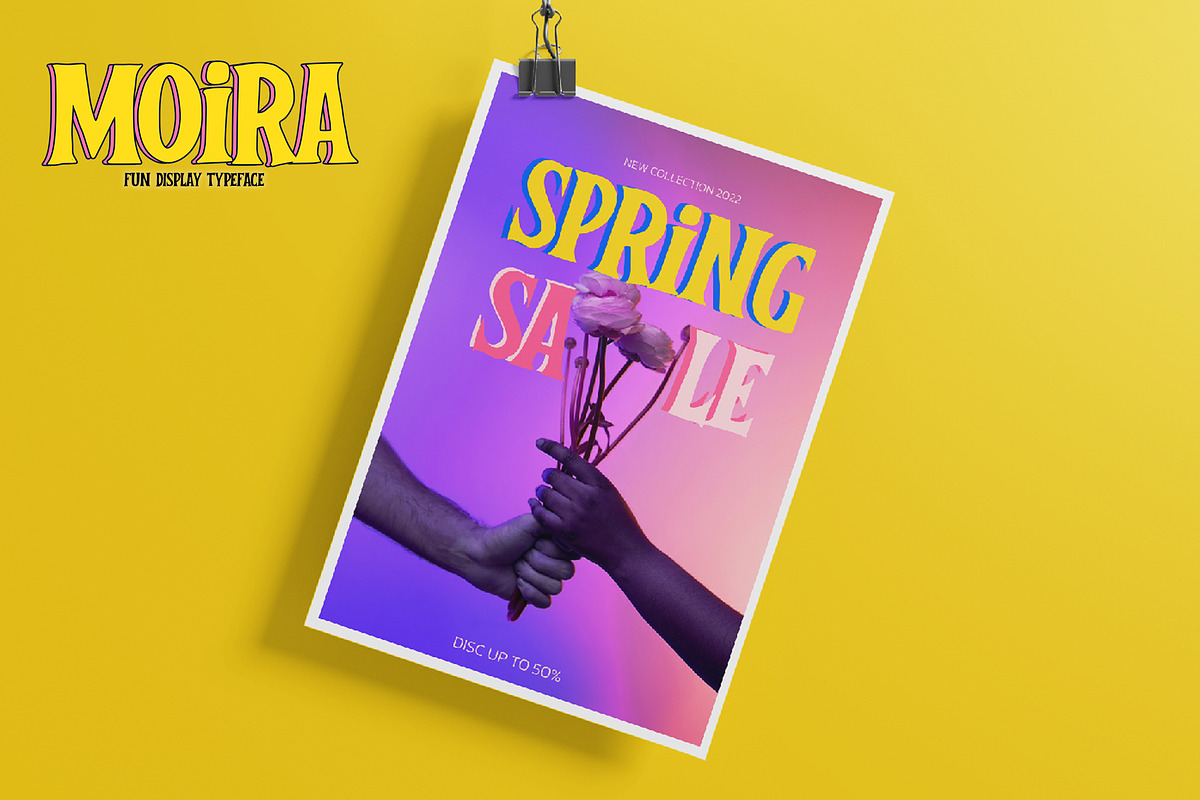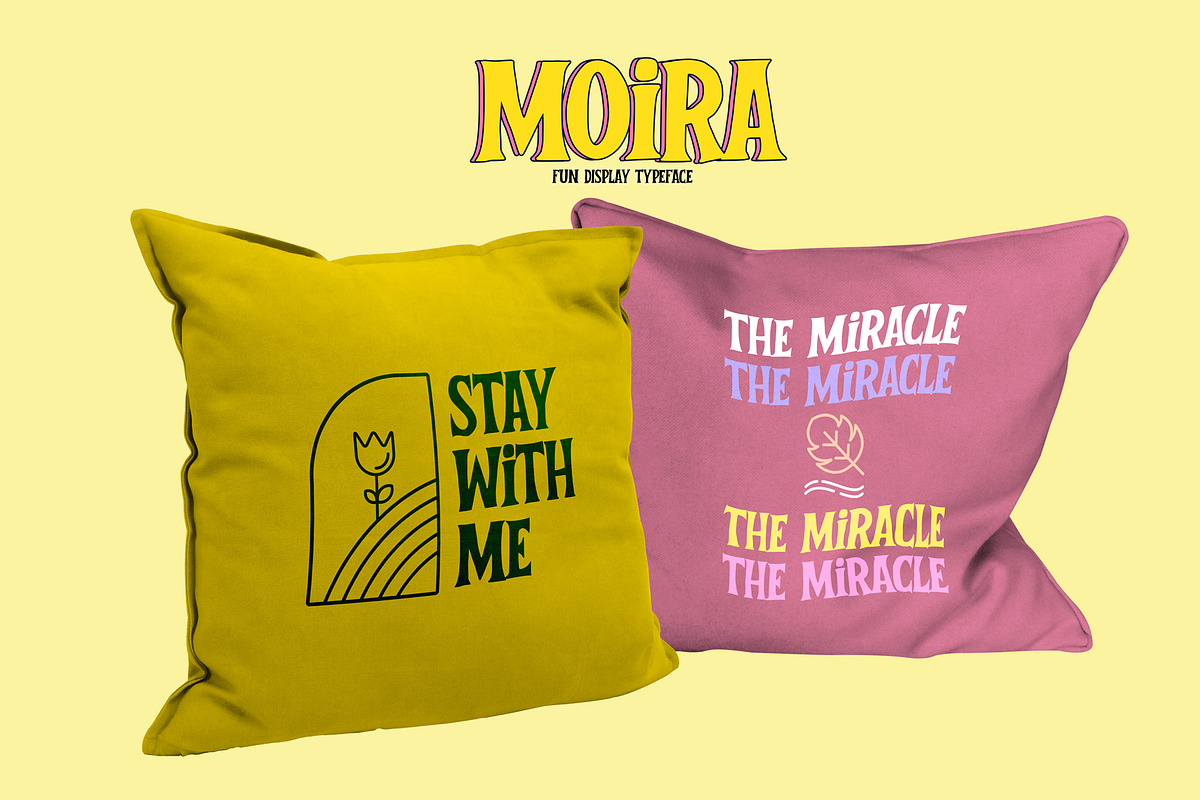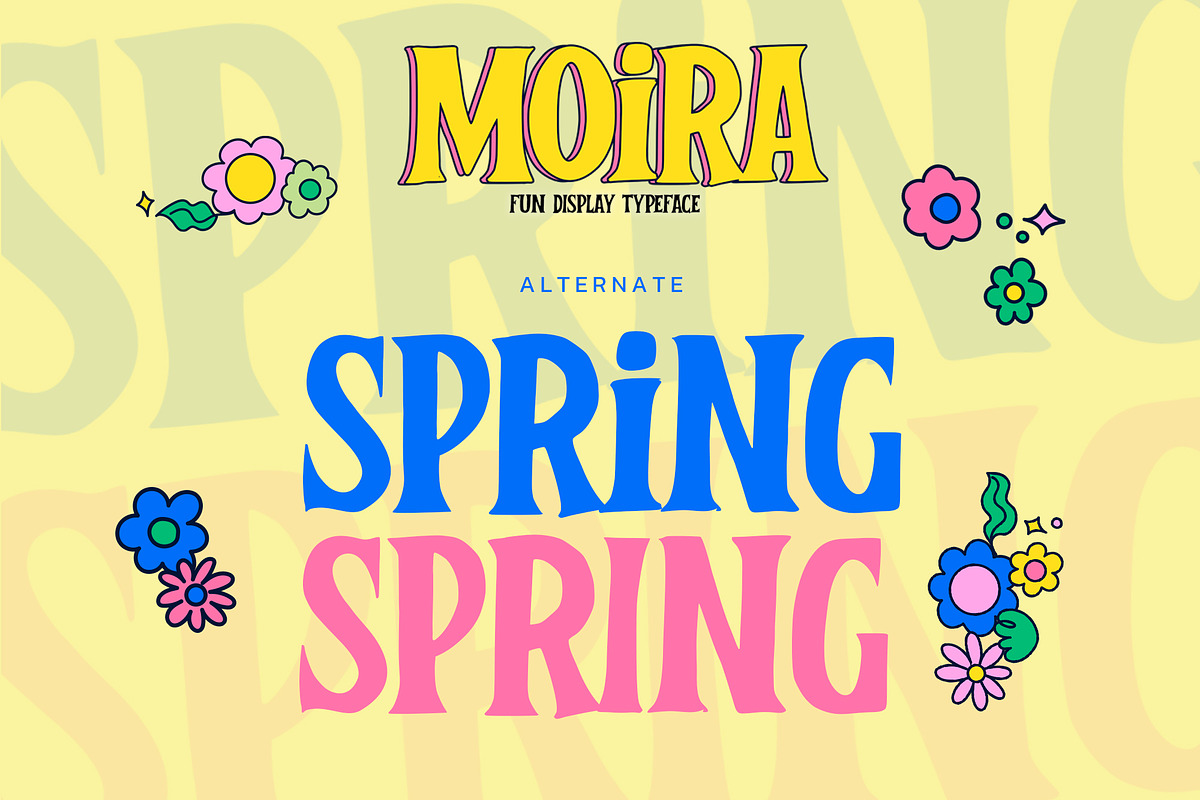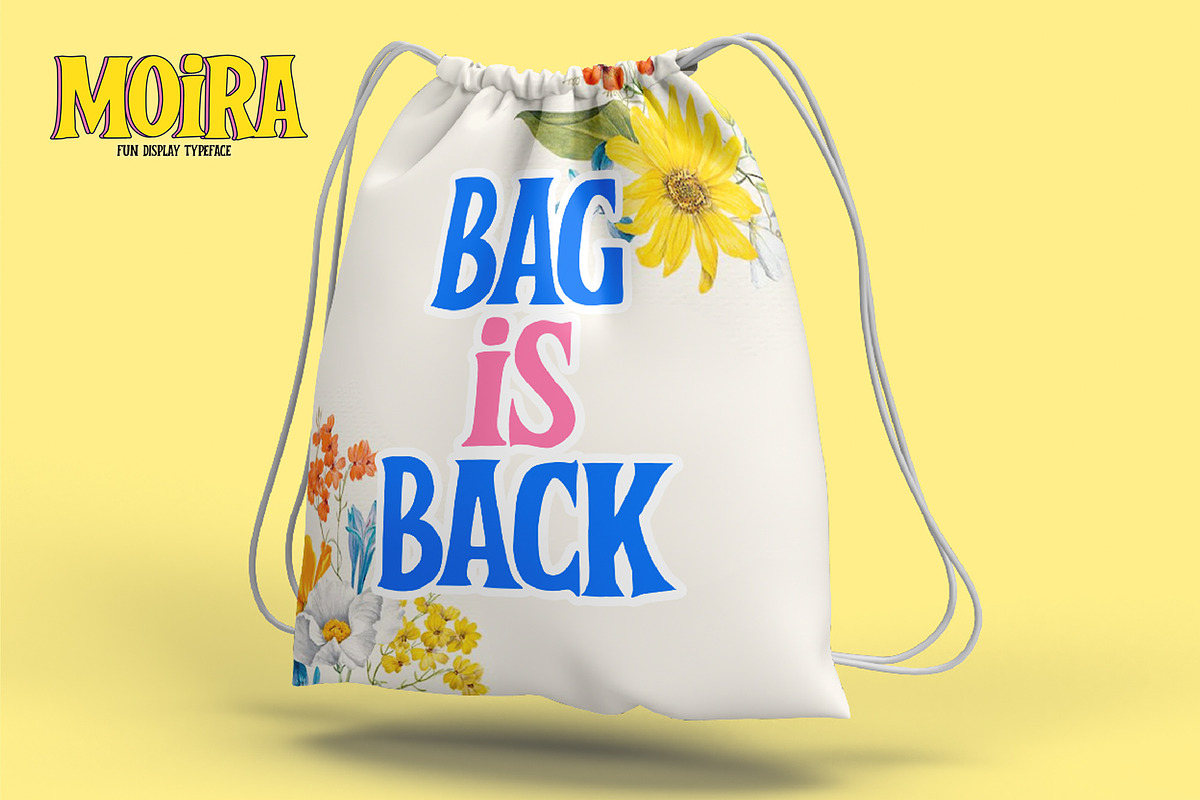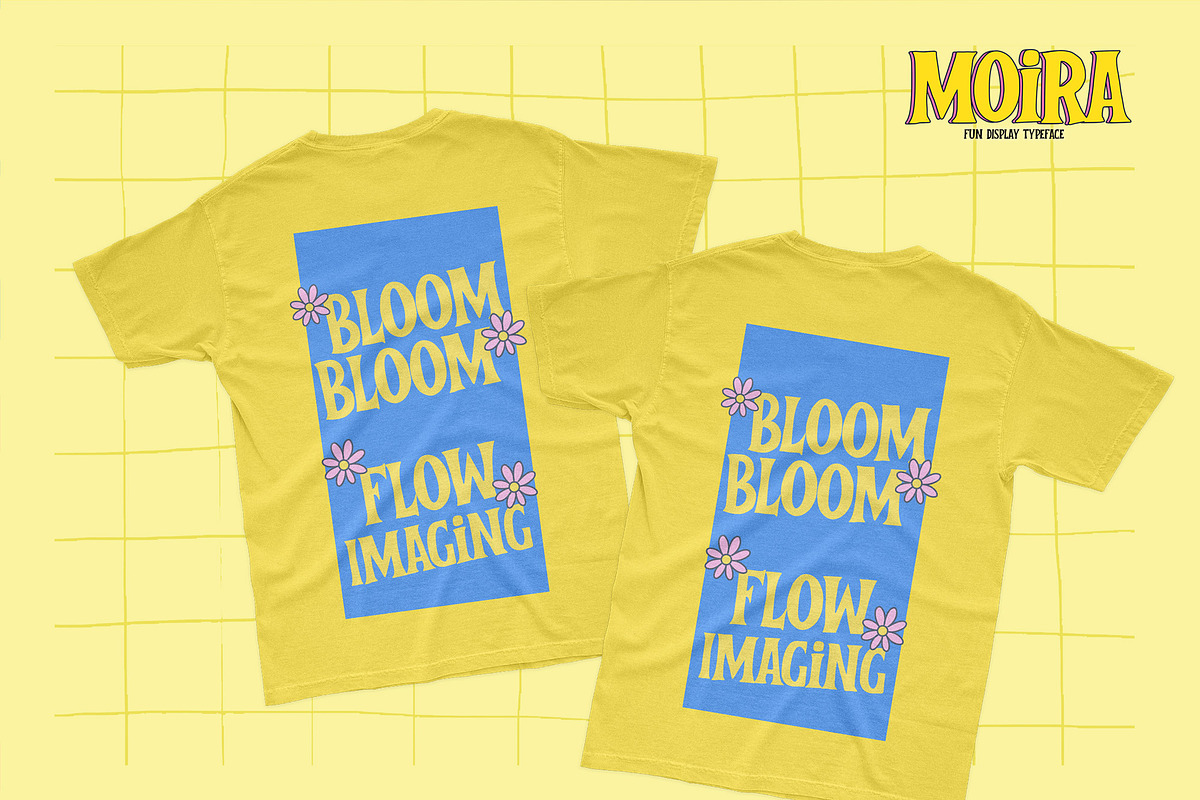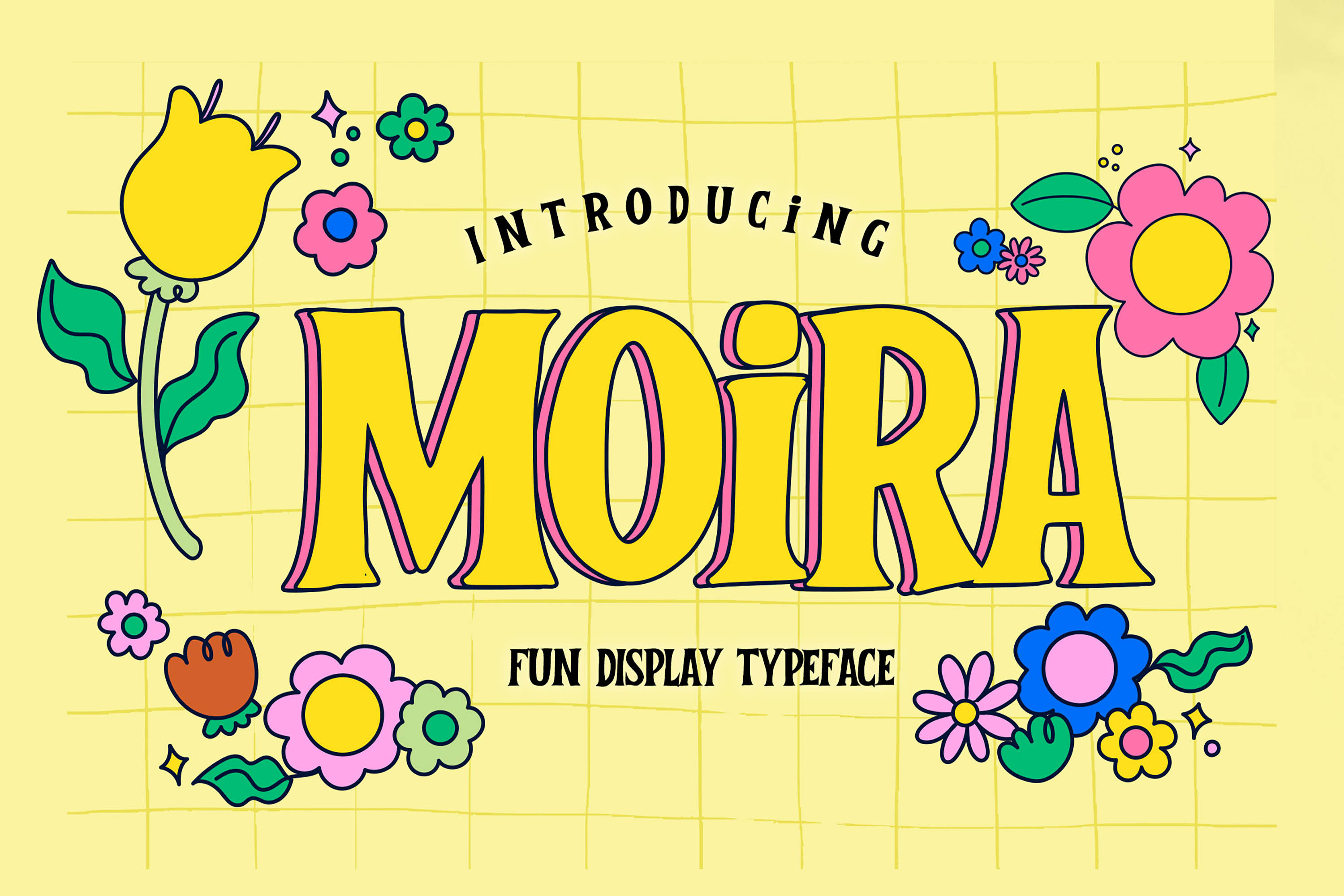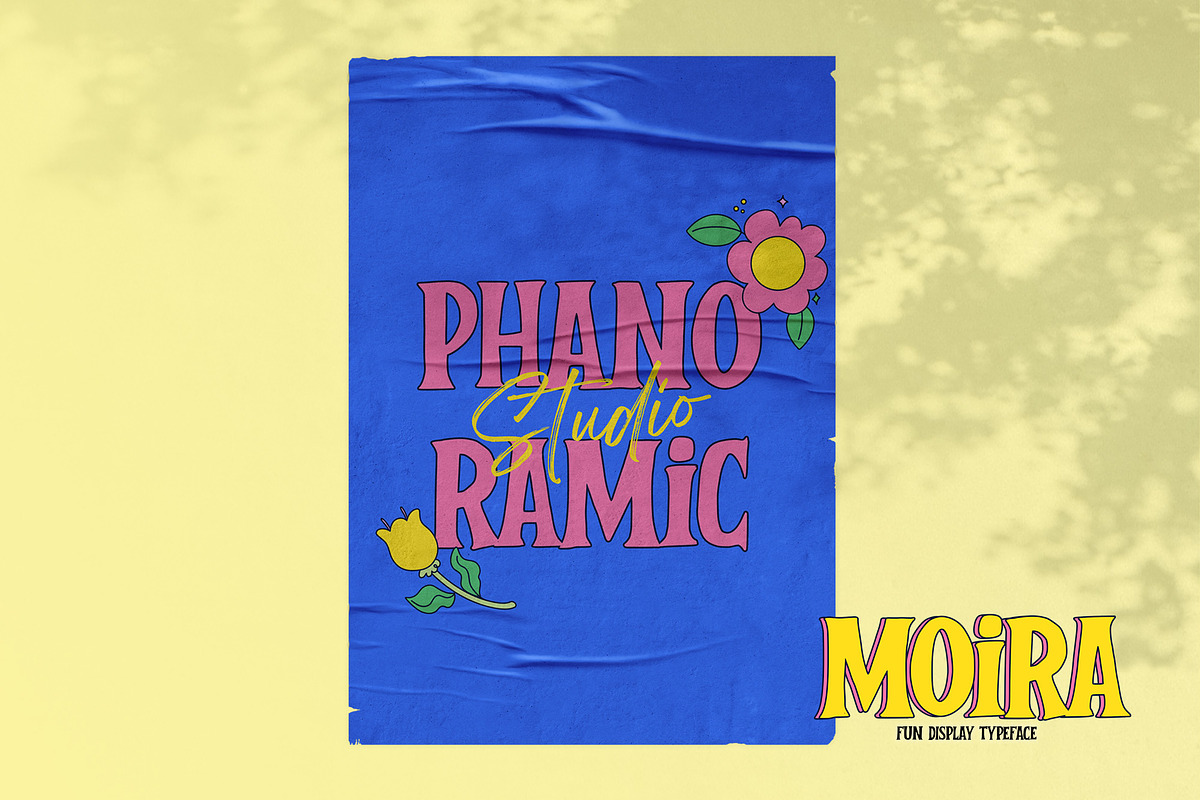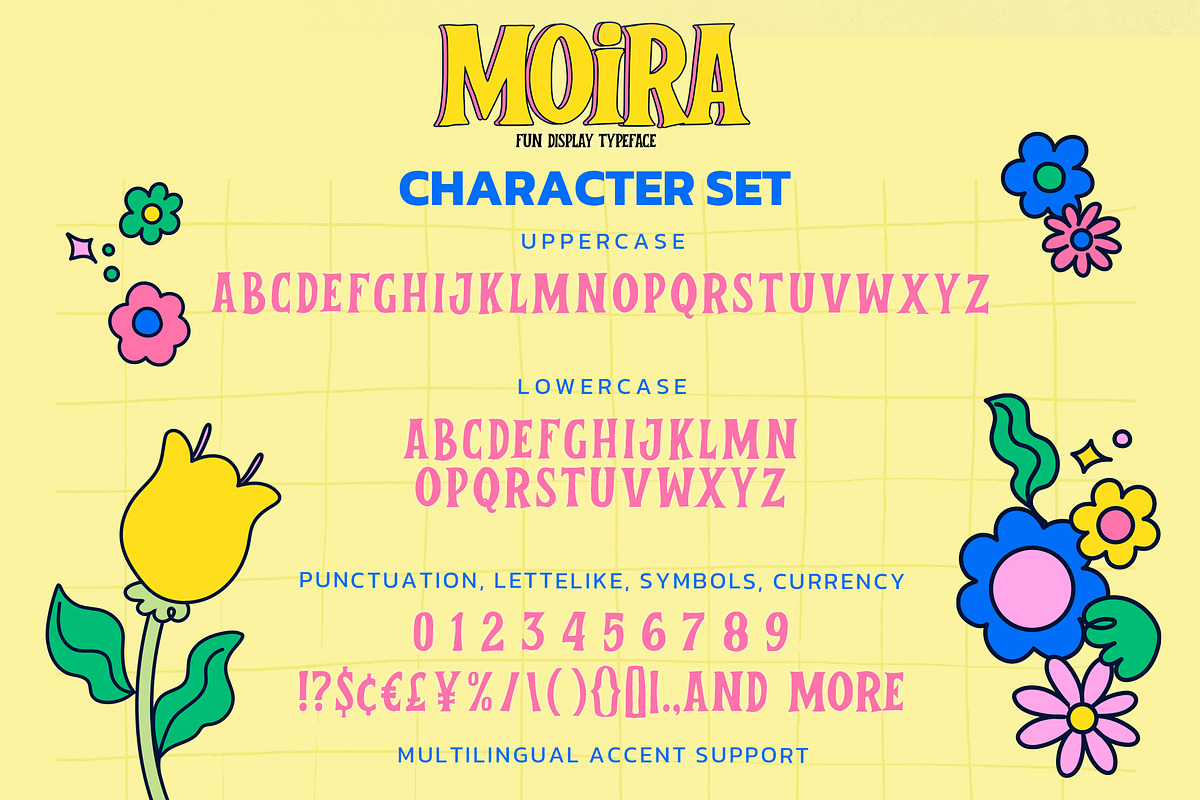
MOIRA - Fun Display Typeface
Hello Everyone, introduce our new product Font MOIRA is a Fun Display Typeface .This is a Textured Natural Style and classy style with a clear style and dramatic movement.
This font MOIRA is great for your next creative project such as logos, printed quotes, invitations, cards, product packaging, headers, Logotype, Letterhead, Poster, Design this font is great for your creative projects such as watermark on photography, and perfect for logos & branding, invitation,advertisements,product designs, stationery, wedding designs,label ,product packaging, special events or anything that need handwritting taste. That is has charming, authentic and relaxed characteristic more natural look to your text You can activate Alternate OpenType panel.
- Alternate glyphs